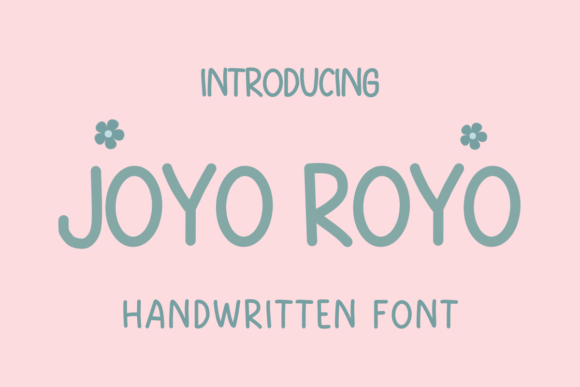
Joyo Royo Font: A Fun and Quirky Display Font for Your Creative Projects
In the world of typography, fonts play a crucial role in conveying the tone and personality of a design. Whether you’re working on a branding project, creating a poster, or designing a website, the right font can make all the difference. If you’re looking for a font that can add a touch of whimsy and fun to your creations, look no further than the Joyo Royo font. In this article, we’ll take a closer look at the Joyo Royo font, its features, and how it can be a valuable asset to your font library.
What is Joyo Royo Font?
Joyo Royo is a fun and quirky display font designed to add a playful touch to your designs. Its unique and irregular shape makes it stand out from more traditional fonts, giving it a distinctive personality that can help your creations grab attention. The font is perfect for use in a variety of projects, from posters and flyers to social media graphics and website headers.
Key Features of Joyo Royo Font
- Unique and Quirky Design: Joyo Royo’s irregular shape and playful design make it a great choice for adding a touch of whimsy to your designs.
- Highly Versatile: The font is suitable for use in a wide range of projects, from print materials to digital designs.
- Easily Readable: Despite its quirky design, Joyo Royo is highly legible, making it perfect for use in titles, headings, and short paragraphs of text.
- Supports Multiple Languages: The font supports a wide range of languages, making it a great choice for international projects.
Ideas for Using Joyo Royo Font
Joyo Royo’s versatility and playful design make it suitable for use in a wide range of projects. Here are a few ideas to get you started:
- Posters and Flyers: Use Joyo Royo to create eye-catching posters and flyers for events, promotions, or announcements.
- Social Media Graphics: Add a playful touch to your social media graphics, such as Facebook posts, Instagram stories, and Twitter headers.
- Website Headers: Use Joyo Royo to create unique and memorable website headers that reflect your brand’s personality.
- Branding and Packaging: Incorporate Joyo Royo into your branding and packaging designs to add a touch of whimsy and personality.
Benefits of Using Joyo Royo Font
So why should you consider adding Joyo Royo to your font library? Here are a few benefits of using this fun and quirky display font:
- Stand Out from the Crowd: Joyo Royo’s unique design helps your creations stand out from the crowd and grab attention.
- Adds Personality to Your Designs: The font’s playful design adds a touch of personality to your designs, helping to convey your brand’s tone and voice.
- Highly Versatile: Joyo Royo can be used in a wide range of projects, making it a valuable asset to your font library.
- Easy to Read: Despite its quirky design, Joyo Royo is highly legible, making it perfect for use in titles, headings, and short paragraphs of text.
Tips for Using Joyo Royo Font
Here are a few tips for getting the most out of Joyo Royo font:
- Use it for Headings and Titles: Joyo Royo is perfect for use in headings and titles, where its playful design can help grab attention.
- Pair it with a Serif Font: For body text, consider pairing Joyo Royo with a serif font to create a nice contrast and add visual interest.
- Experiment with Colors and Textures: Joyo Royo’s playful design lends itself well to experimentation with colors and textures. Don’t be afraid to try out different combinations to find the one that works best for your project.
In conclusion, Joyo Royo font is a fun and quirky display font that can add a touch of whimsy and personality to your designs. Its unique design, versatility, and readability make it a valuable asset to your font library. Whether you’re working on a branding project, creating a poster, or designing a website, Joyo Royo is a great choice for adding a playful touch to your creations.